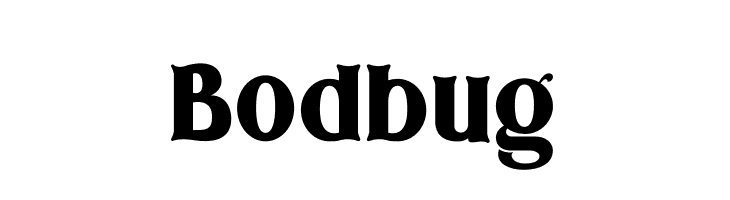
A decorative design using peace symbols in a flag motif.
A bold, classic serif font with strong, authoritative strokes.
A bold, playful font with rounded strokes and a cartoonish style.
A playful and whimsical font with bold, rounded strokes and an artistic flair.
A futuristic, bold font with geometric shapes and sharp angles.
A bold, playful font with a comic book style and hand-drawn appearance.
A modern, rounded sans-serif font with a friendly and clean appearance.
A bold, futuristic font with a leftward slant and geometric design.
A bold, italic serif font with strong, dynamic strokes and sharp serifs.
A graceful and flowing script font with elegant cursive strokes.
设计师偏爱 KR A Time For Peace, CheapProFontsSerifPro-Bold, Cartoon Bold, Delicious Ketchup and Starfighter Laser Bold,因为其造型干净、适用范围广—— 从品牌识别到落地页、海报都能胜任。